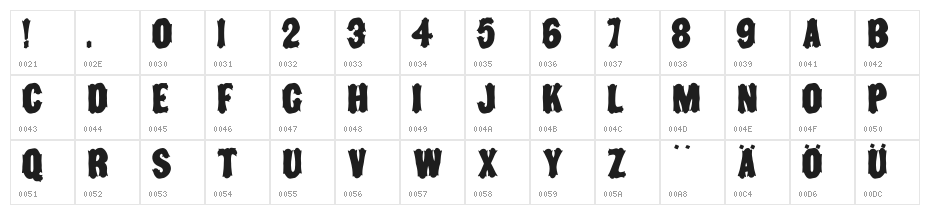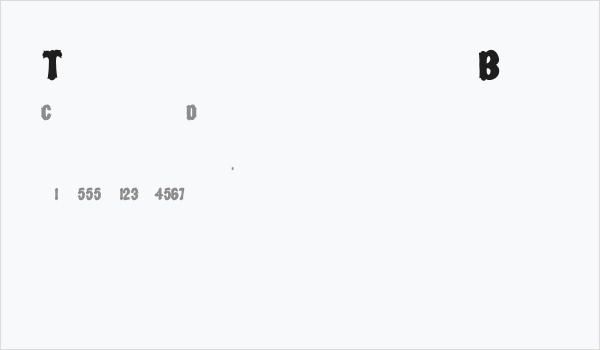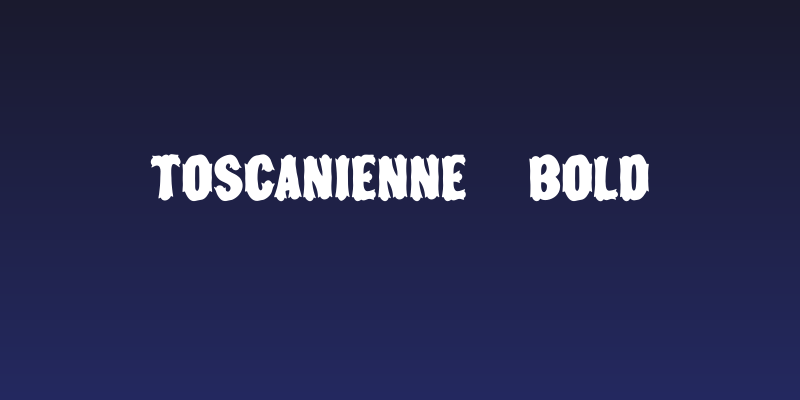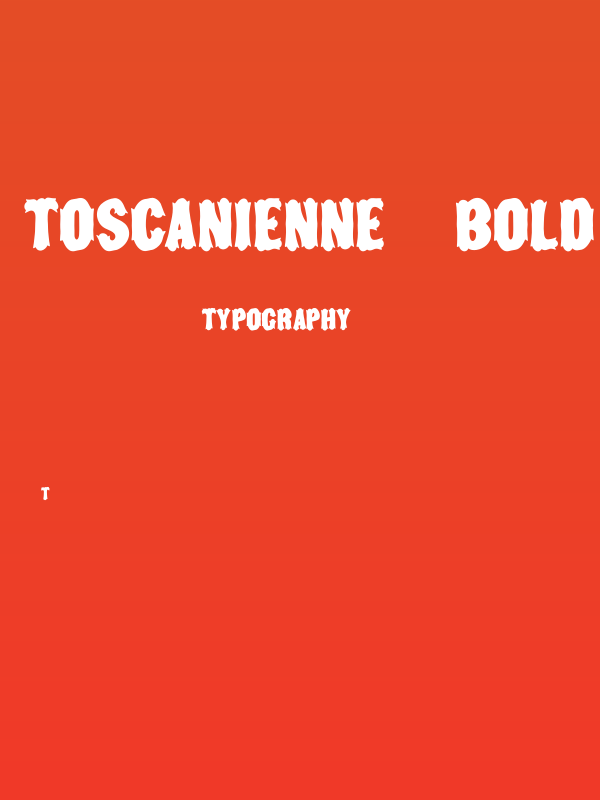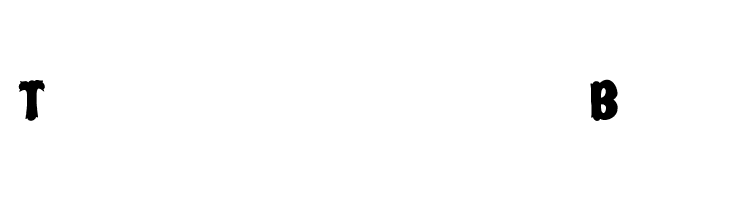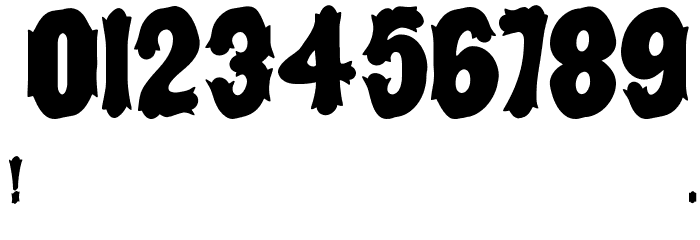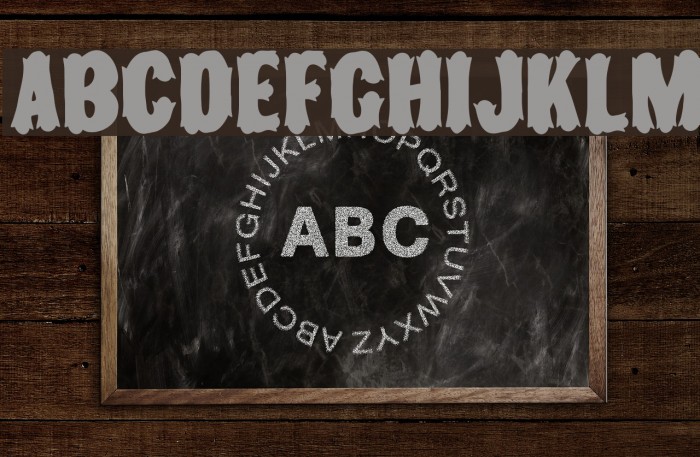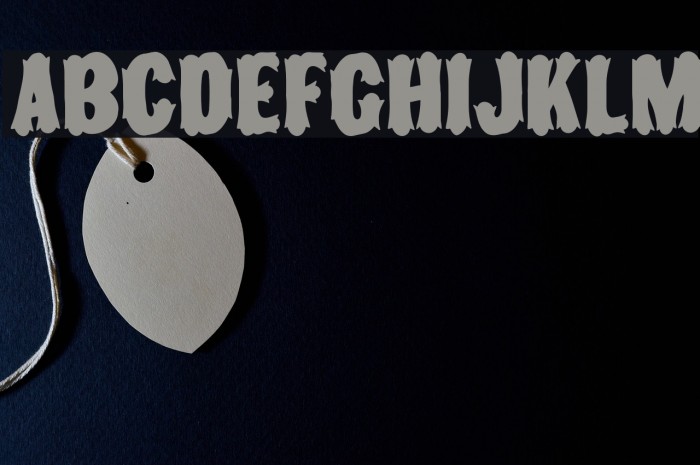
Toscanienne-Bold Font
Toscanienne-Bold Description
This bold and decorative font features a unique and eye-catching style with thick, heavy strokes and ornate detailing. The characters are designed with a playful yet robust appearance, making them stand out prominently. The uppercase letters are particularly striking, with their exaggerated serifs and bold presence. The numbers follow the same bold style, ensuring consistency across all characters. This font's distinctiveness is further enhanced by its whimsical and artistic flair, making it ideal for projects that require a strong visual impact.
| Proposed Projects | Ideal for posters, headlines, logos, and any design requiring a bold, artistic touch. |